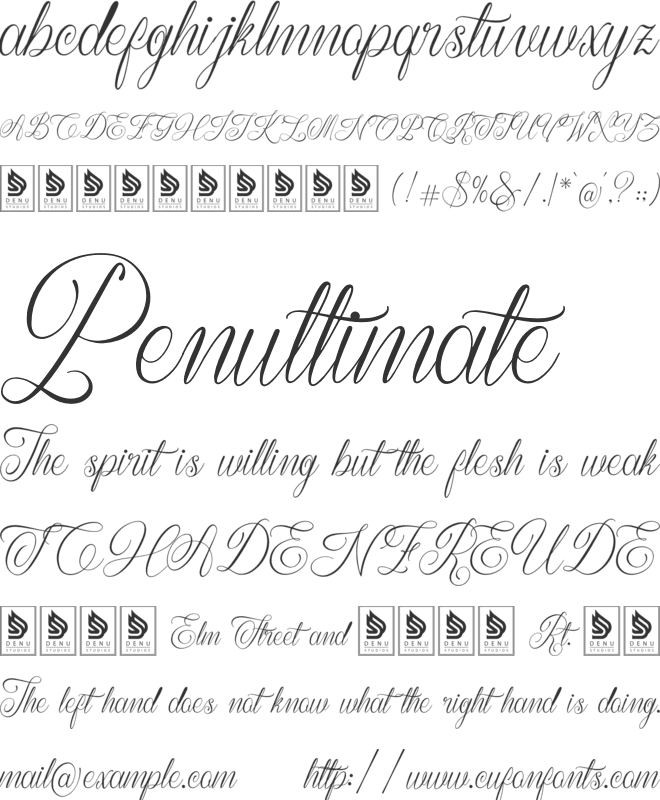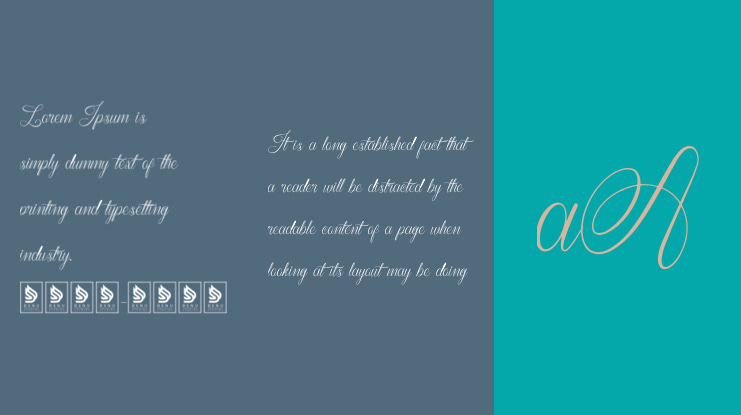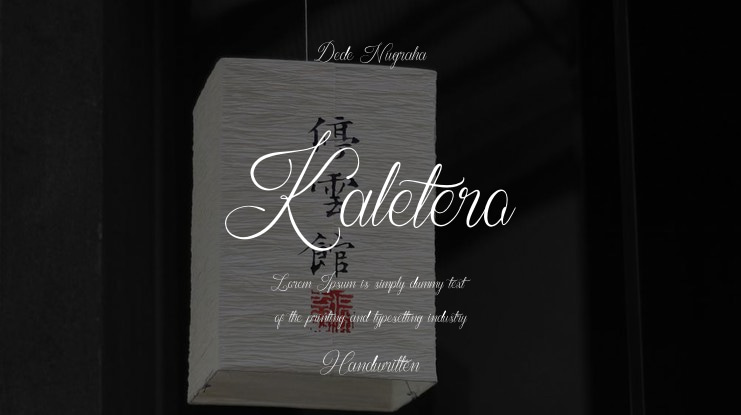
Kaletero Font
Kaletero | Calligraphy Script product packaging, mugs, quotes, posters, shopping bags, t-shirts, book covers, name card, invitation cards, greeting cards, label, photography, watermark, special events, and all your other lovely projects that need a Script taste.